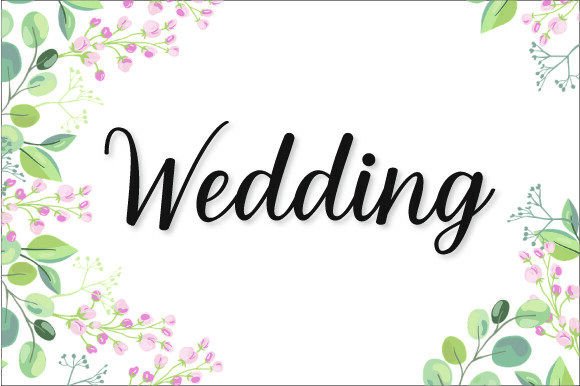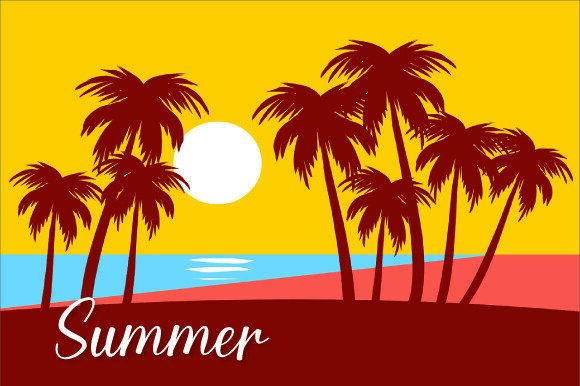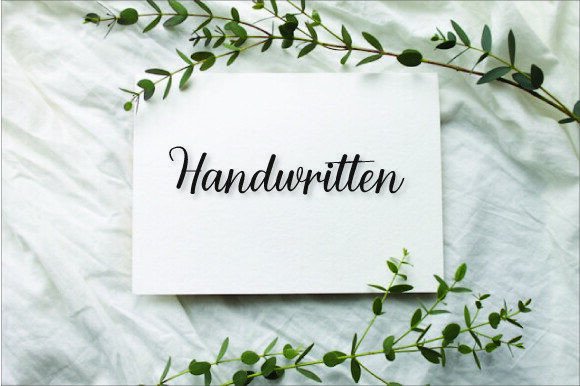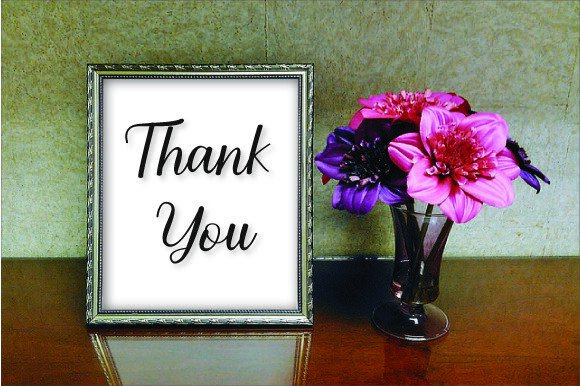
Introduction to Denthist Font
Remember that moment when you’re brainstorming ideas for a creative project and you stumble upon the perfect font to bring it all together? For designers, that ‘aha’ moment is invaluable. It’s what turns a good design into a great one. And, for those who are about to experience it, we’re excited to introduce you to the Denthist Font.
This charming, cursive handwritten font is a game-changer for any design project. With its gentle and elegant touch, it adds a romantic and joyful vibe that’s perfect for branding, wedding invitations, greeting cards, and more. Whether you’re working on a high-quality design resource or need a free download for a marketing promotion, Denthist Font is sure to impress. Its transparent background makes it easy to customize and pair with other design elements.
Key Features of Denthist Font
- Unique, modern aesthetic with a transparent background, allowing for seamless integration with any design.
- Supports a wide range of languages, making it a versatile choice for international design projects.
- Designed with high resolution (300 DPI) for optimal print quality and web use.
- Perfect for use in logos, typography, and other design elements, adding a touch of sophistication to any creative project.
Honest Review: Denthist Font
I recently came across the Denthist Font, and I’m excited to share my honest review with fellow designers. As a design resource, fonts play a crucial role in setting the tone and style of a creative project.
The Denthist Font is a high-quality, free download that offers a unique and modern aesthetic. Its clean design makes it perfect for use in a variety of projects, from branding to editorial content.
Here are some of the things that work well with the Denthist Font:
- ✨ Versatile: The font is suitable for both digital and print projects.
- ✨ Easy to read: The font’s clear design makes it easy to read, even at smaller sizes.
- ✨ Transparent background: The font’s transparent background makes it easy to use on any background image or color.
While the Denthist Font is a great addition to any designer’s toolkit, there are a few limitations:
- ⚠️ Limited font styles: The font is only available in a few styles, which may limit its use in certain projects.
- ⚠️ Not suitable for all projects: The font’s modern design may not be suitable for projects that require a more traditional or vintage aesthetic.
Overall, I’m impressed with the Denthist Font and would recommend it to designers looking for a high-quality, free font to add to their creative project.
Tips for Getting the Most Out of Denthist Font
Use Denthist Font in conjunction with a transparent background to create a clean and modern design. Experiment with different font sizes and styles to add visual interest to your project. You can also use Denthist Font in combination with other design resources to create a unique and eye-catching look.
Denthist Font is a versatile font that can be used in a variety of creative projects, including logos, posters, presentations, and written content. It’s a great choice for designers, writers, and artists who want to add a touch of elegance and sophistication to their work.
Yes, the Denthist Font is designed to be highly versatile and can be used with a transparent background, making it ideal for designs that require a high level of customization and flexibility.
Q: What is the recommended resolution for using the Denthist Font in high-quality designs?
We recommend using the Denthist Font at a resolution of at least 300 DPI (dots per inch) to ensure optimal quality and clarity in your designs. This will help to maintain the font’s high-quality appearance, even when scaled or resized.